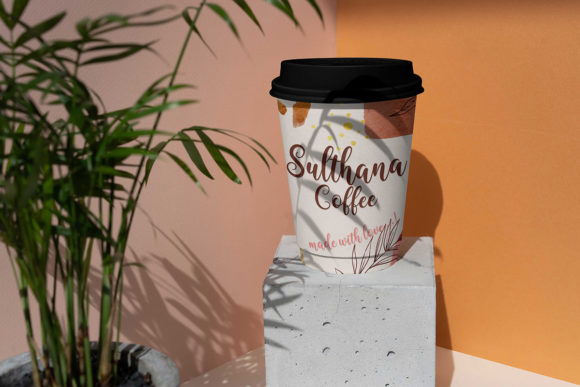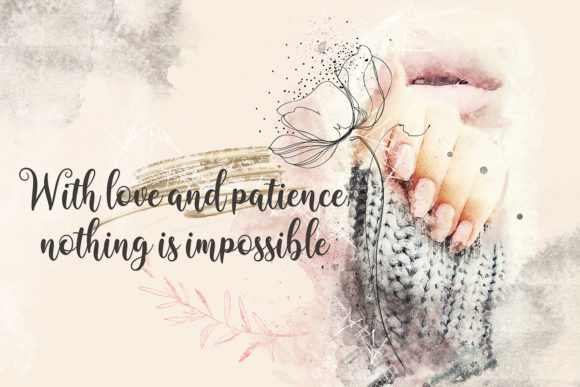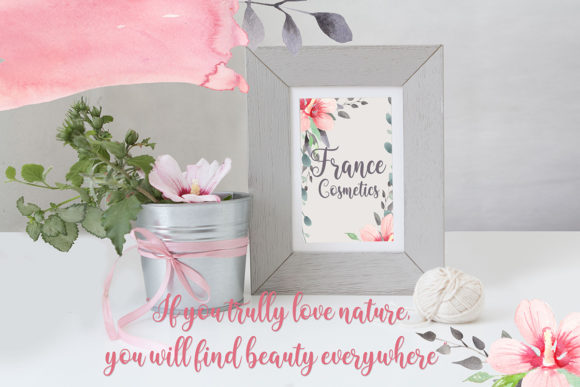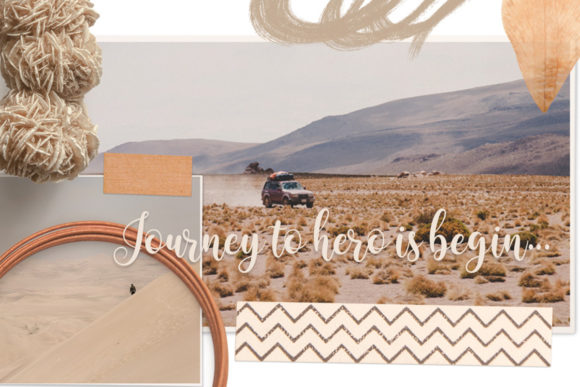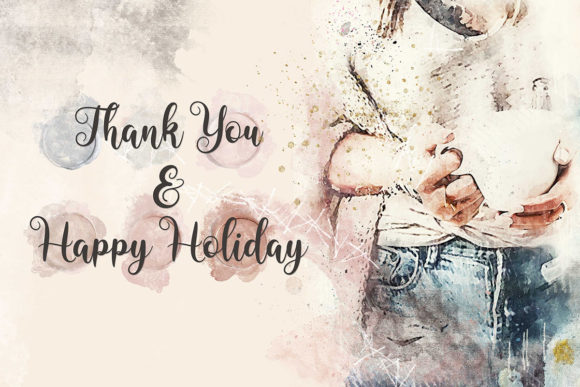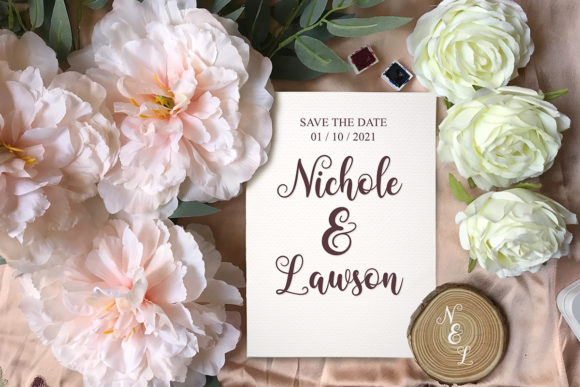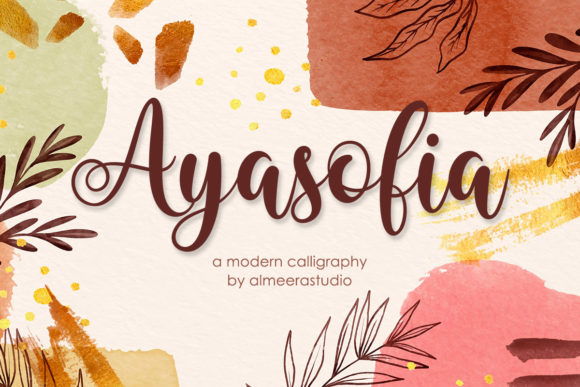
Ayasofia Font: Elevate Your Designs with Elegance and Sophistication
In the world of typography, few fonts manage to capture the essence of elegance and sophistication as beautifully as Ayasofia. This stunning script font has been making waves among designers and crafters alike, and for good reason. With its flowing lines and personalized style, Ayasofia is the perfect choice for a wide range of design projects, from wedding invitations and thank you cards to logos and greeting cards.
The Beauty of Ayasofia Font
Ayasofia is a true masterpiece of typographic design. Its elegant and cursive style exudes a sense of luxury and refinement, making it ideal for designs that require a touch of sophistication. The font’s flowing lines and curves create a beautiful, hand-written feel that is both personal and inviting. Whether you’re designing a wedding invitation or a logo for a high-end brand, Ayasofia is sure to impress.
Uses for Ayasofia Font
One of the best things about Ayasofia is its versatility. This font can be used for a wide range of design projects, including:
- Wedding invitations and wedding cards: Add a touch of elegance to your wedding stationery with Ayasofia’s beautiful script font.
- Thank you cards and greeting cards: Make your cards stand out with Ayasofia’s personalized and inviting style.
- Logos and branding: Use Ayasofia to create a sophisticated and luxurious brand identity that will leave a lasting impression.
- Stationery and paper crafts: Add a touch of elegance to your paper crafts and stationery with Ayasofia’s beautiful font.
Why Designers and Crafters Love Ayasofia
So why have designers and crafters fallen in love with Ayasofia? Here are just a few reasons:
- Elegance and sophistication: Ayasofia’s elegant and cursive style adds a touch of luxury to any design.
- Versatility: This font can be used for a wide range of design projects, from wedding invitations to logos and branding.
- Personalized style: Ayasofia’s flowing lines and curves create a beautiful, hand-written feel that is both personal and inviting.
- Easy to read: Despite its elegant style, Ayasofia is easy to read, making it perfect for designs that require a clear and legible font.
Tips for Using Ayasofia Font
To get the most out of Ayasofia, here are a few tips to keep in mind:
- Use it sparingly: Ayasofia is a beautiful font, but it can be overwhelming if used too much. Use it sparingly to add a touch of elegance to your design.
- Pair it with a simple font: Pair Ayasofia with a simple font to create a beautiful contrast that will make your design stand out.
- Experiment with colors: Ayasofia looks beautiful in a range of colors, so don’t be afraid to experiment and find the perfect color for your design.
In conclusion, Ayasofia is a stunning script font that is sure to elevate your designs with elegance and sophistication. Its flowing lines and personalized style make it perfect for a wide range of design projects, from wedding invitations to logos and branding. With its versatility, elegance, and ease of use, Ayasofia is a must-have font for any designer or crafter looking to add a touch of luxury to their designs.